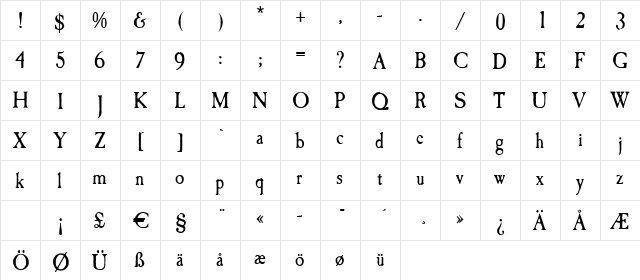
Caslon-Antique-Display Regular
Design Context for Caslon-Antique-Display Typeface
Caslon-Antique-Display has the warm character of retro typography — evoking diners, record sleeves, and the golden age of print advertising.
Perfect for vintage-inspired branding, retro packaging, nostalgia campaigns, and period-accurate editorial design.
Font Pairing: Combine Caslon-Antique-Display with a simple slab or neutral sans — period-accurate companions reinforce the vintage feel without competing for attention.
Pro Tip: Use Caslon-Antique-Display for headlines and pull quotes rather than body copy — its personality is best appreciated in short, focused bursts.